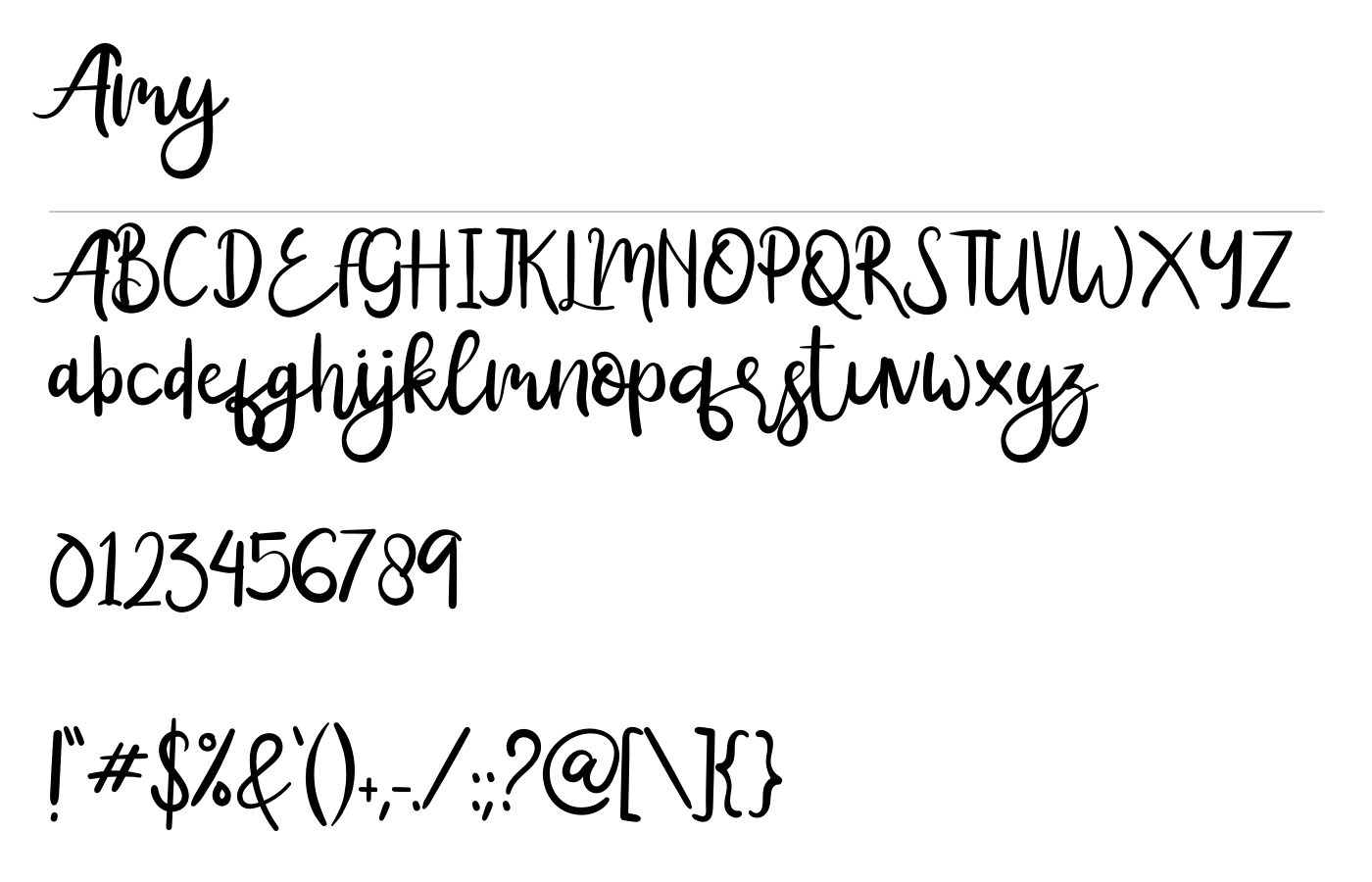
Amy Font is a playful and casual handwritten script with a lively, flowing style that blends both uppercase and lowercase characters seamlessly. Its smooth, rounded strokes and natural feel make it perfect for creative projects, invitations, and branding that aims for a friendly, personal touch. This font works well in designs where a warm, approachable vibe is desired without sacrificing readability.
Amy Font
About Amy Font
| Font family | Amy Font |
| Designer | Haksen Letters |